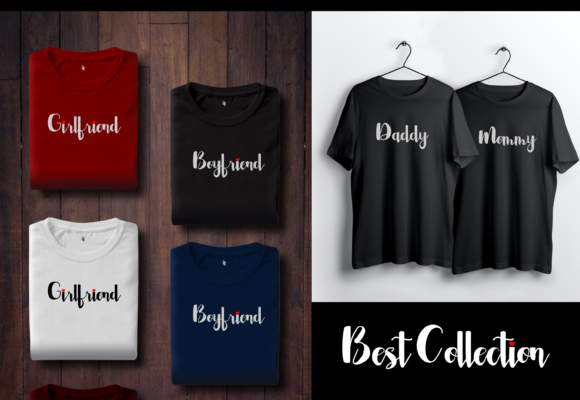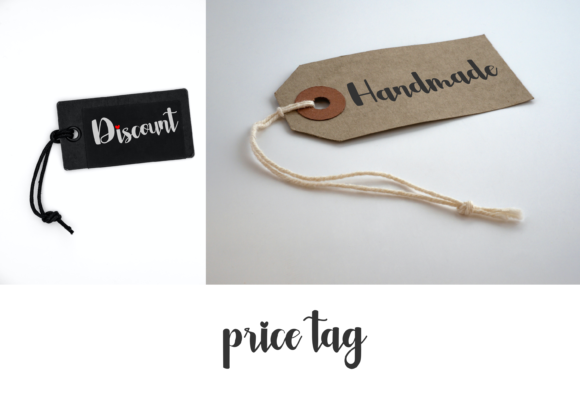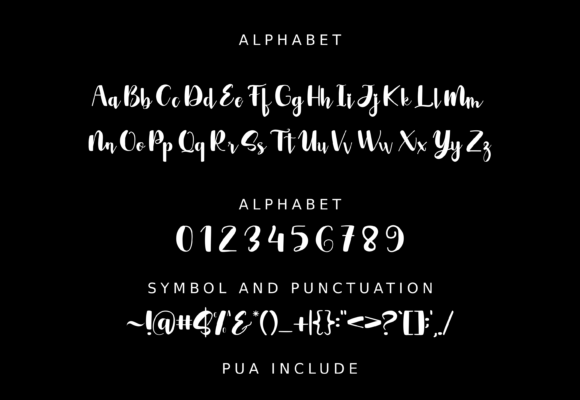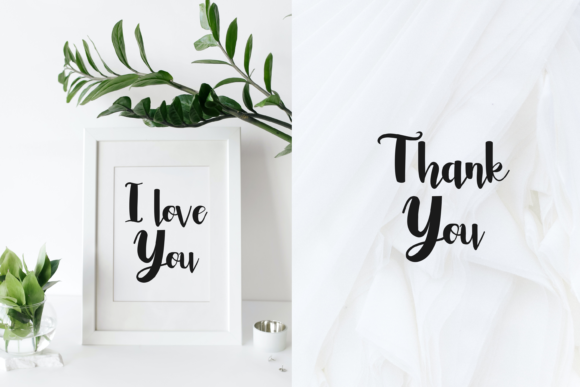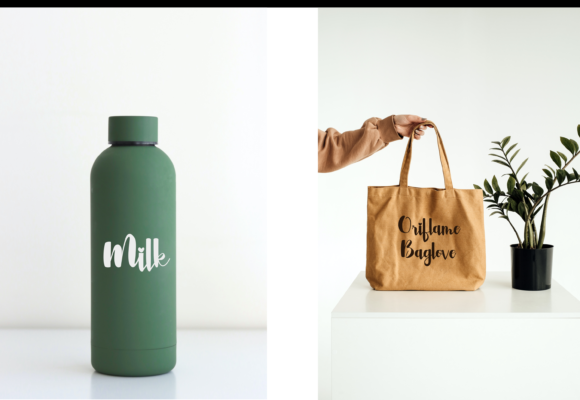
Darling Font
About Darling Font
Darling is a dainty, genuine and cursive handwritten font. This gentle font will look gorgeous on a variety of design ideas. It will add a joyful and romantic touch to each of your projects!